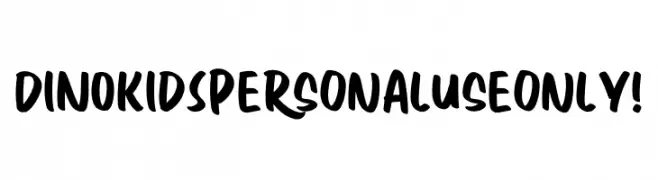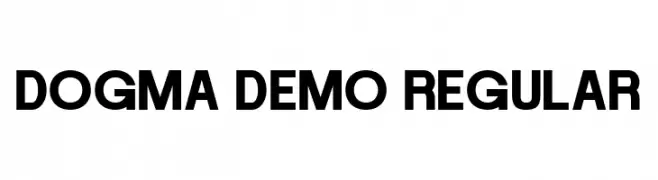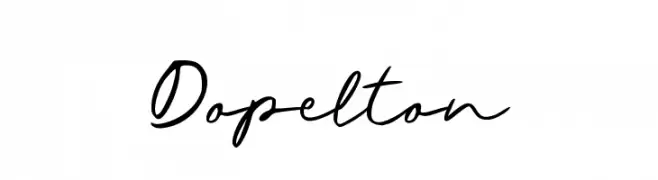
A playful, bold handwritten font with a dynamic and energetic style.
A rugged, hand-drawn font with a gritty, organic texture.
A playful, jagged font with a hand-drawn, doodle-like appearance.
A bold, modern font with thick strokes and strong visual impact.
A flowing, cursive script font with a handwritten, elegant style.
A bold, cartoonish font with a hand-drawn, three-dimensional style.
An elegant, cursive font with graceful loops and high contrast strokes.
A bold, playful font with rounded characters and a whimsical style.
A playful, bold, and handwritten-style font with rounded characters.
A playful, whimsical font with uneven, distorted letterforms and a brush-like texture.